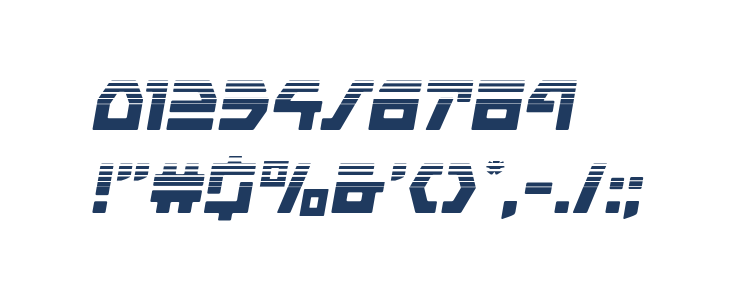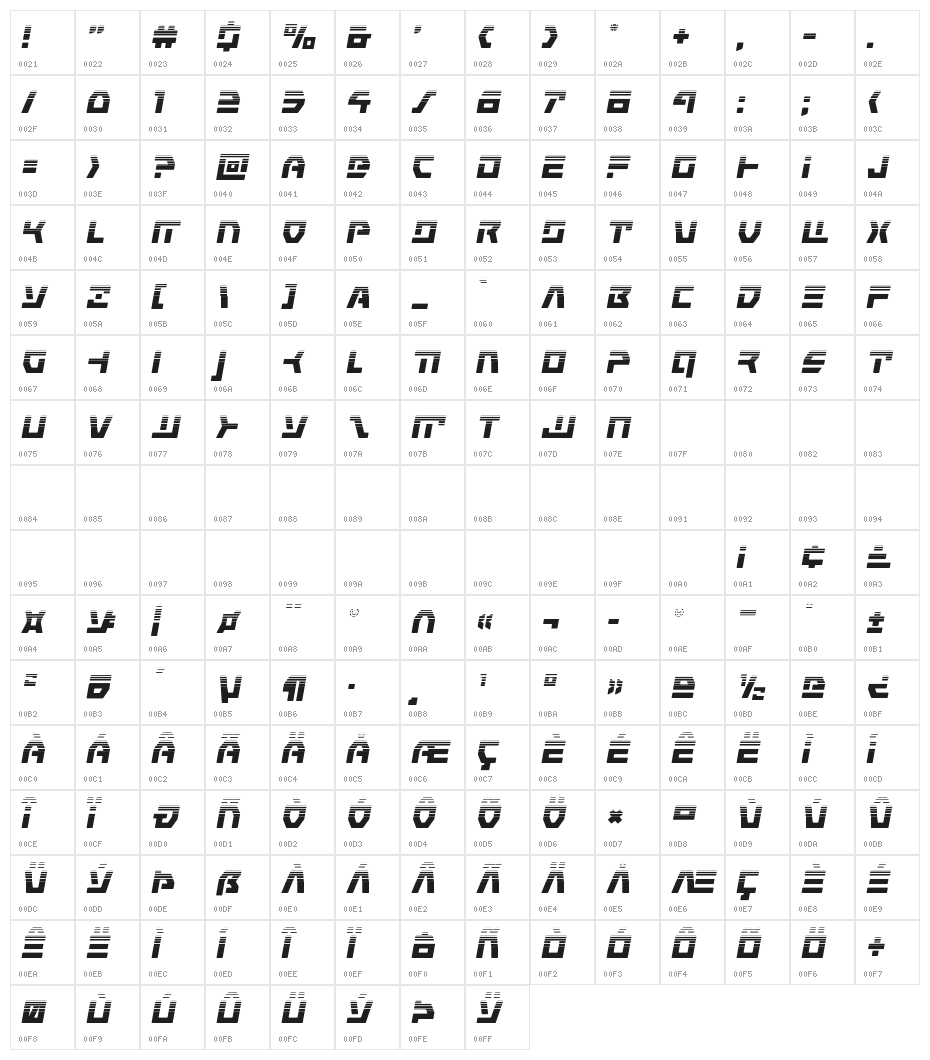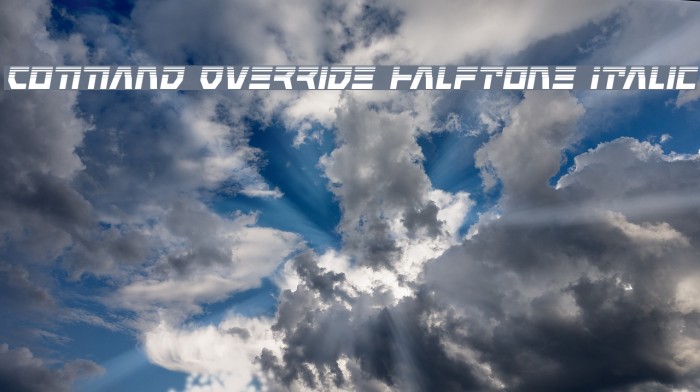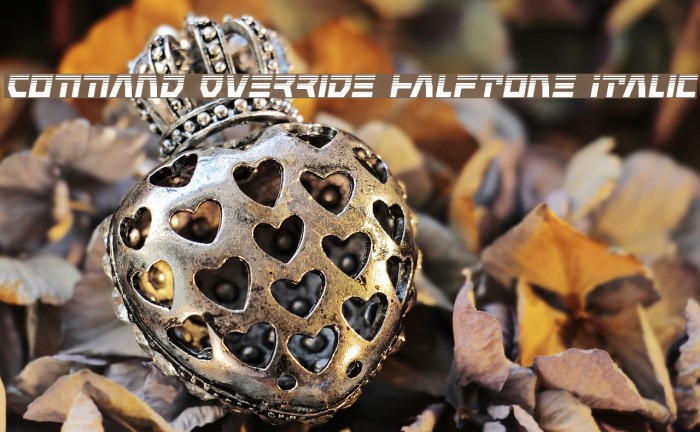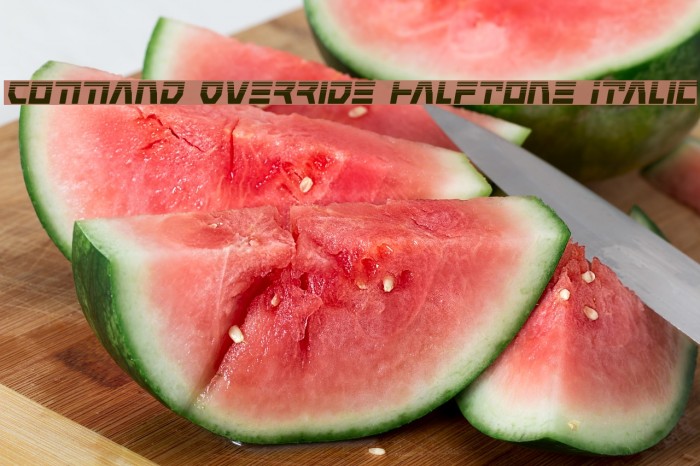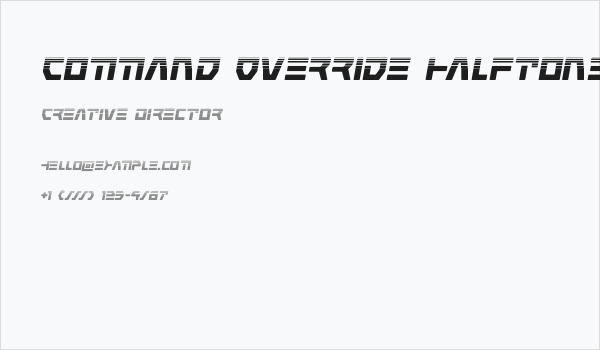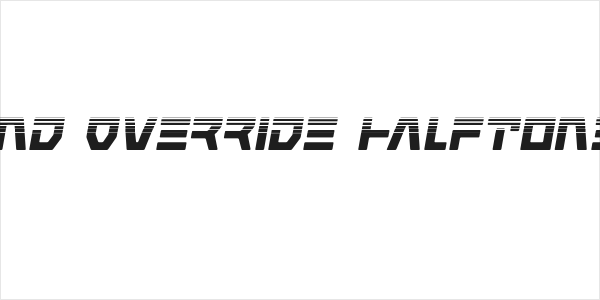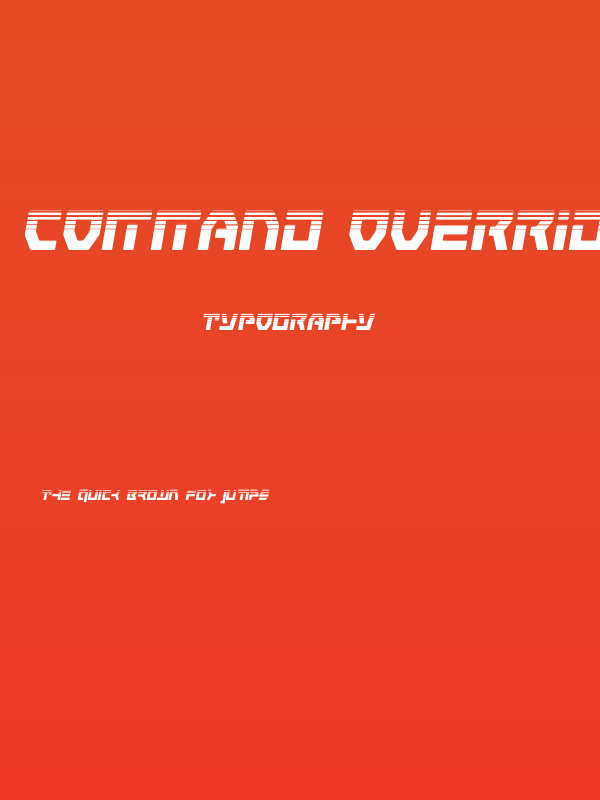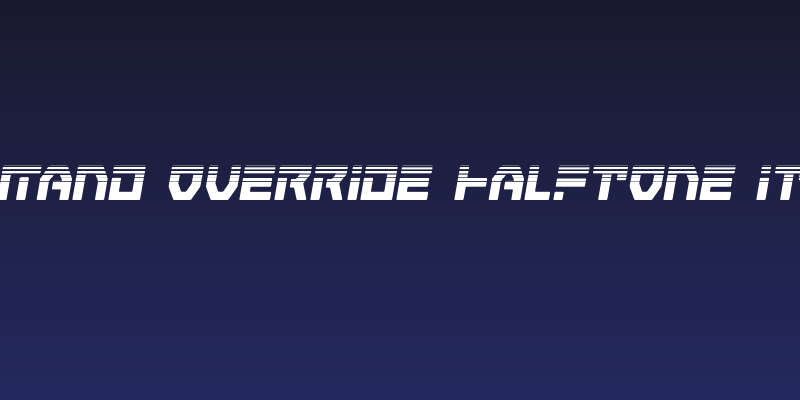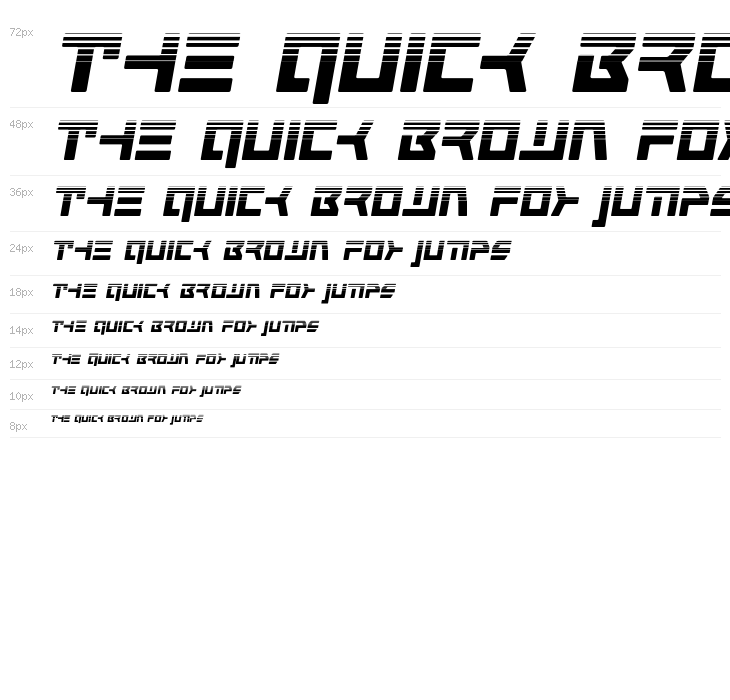
Command Override Halftone Italic Font
Command Override Halftone Italic Description
This font features a bold and futuristic design with a distinct halftone effect. The characters are italicized, giving them a dynamic and forward-leaning appearance. Each letter is composed of solid black segments interspersed with horizontal white lines, creating a striped pattern that adds depth and movement. The angular and geometric shapes of the letters contribute to a modern and edgy aesthetic, making it suitable for attention-grabbing designs. The font maintains consistent spacing between characters, ensuring readability while emphasizing its unique style.
| Proposed Projects | Ideal for sci-fi themed posters, video game titles, tech branding, and futuristic event flyers. |